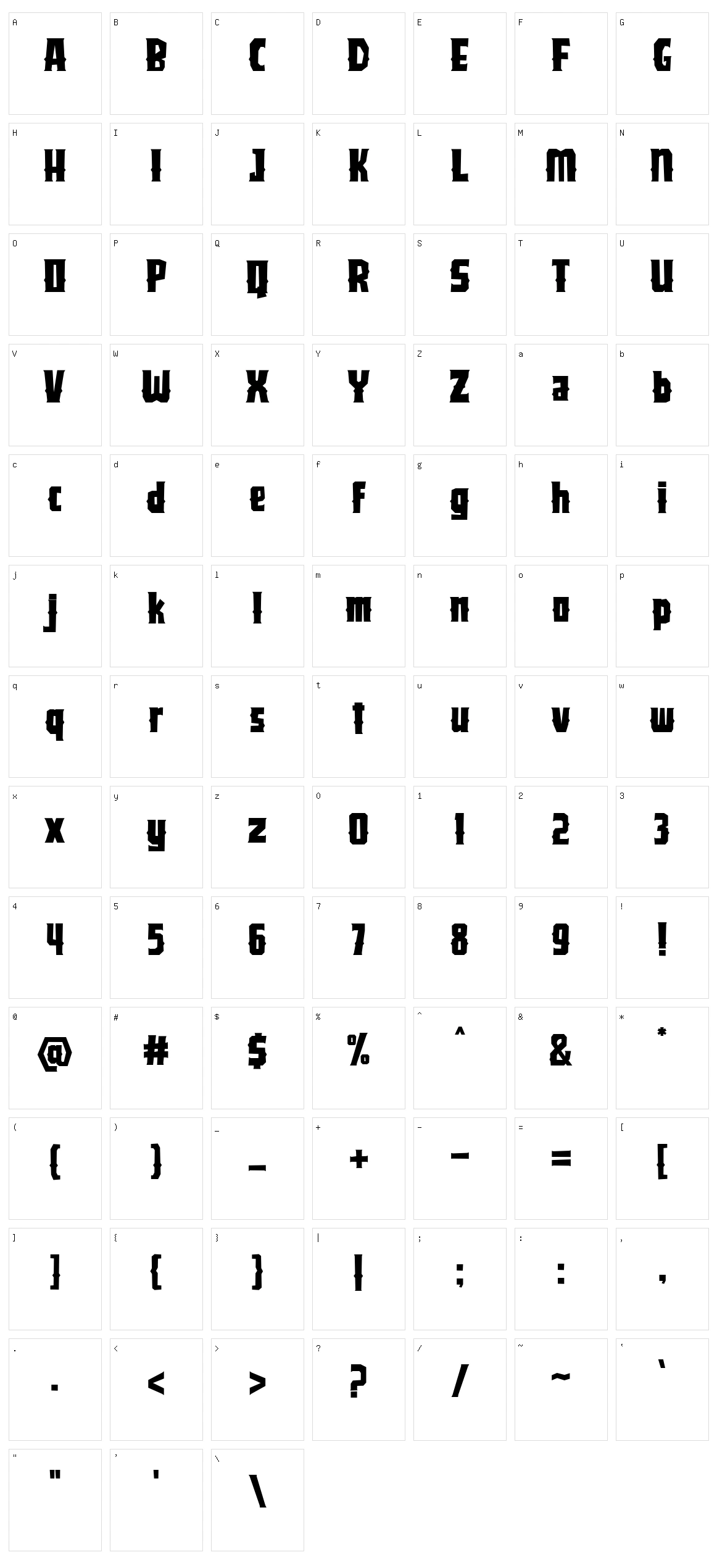
The free font Jackster is carefully designed by Weape Studio, showcasing a thoughtful balance of creativity and usability and falls under the Old School font style. When you download the ZIP file, it contains only 10.26 KB of font files, making it lightweight and quick to download. Please review the license details below to understand permitted usage and distribution rights. If license information is not available, we recommend using this font for personal projects only or contacting the author directly for commercial usage permissions.